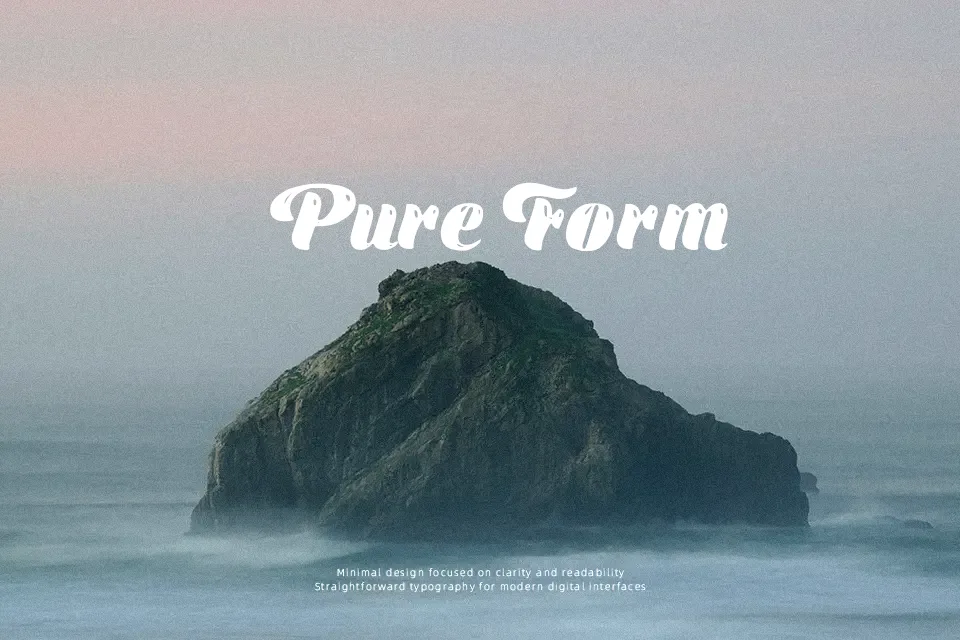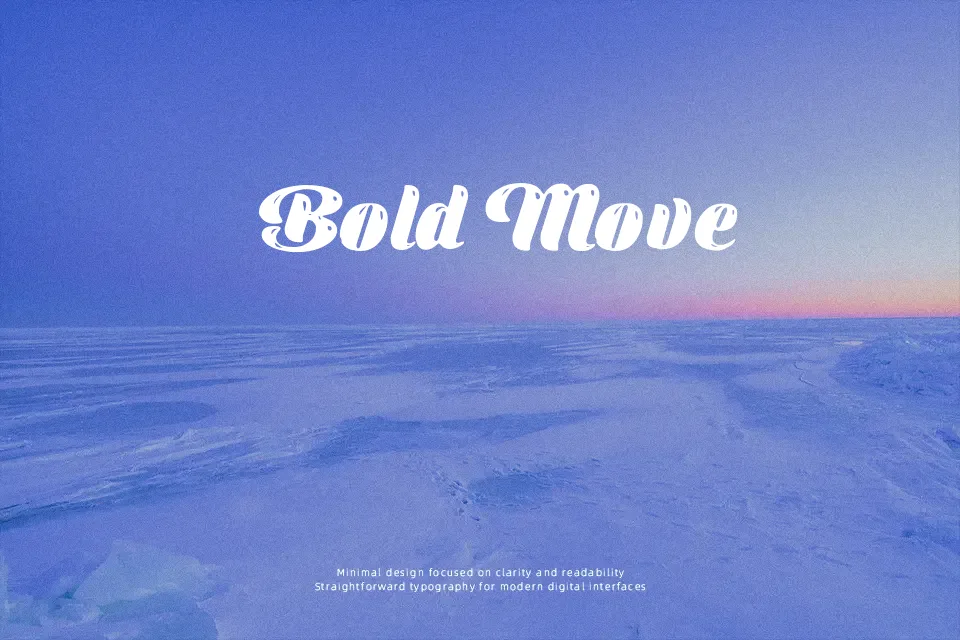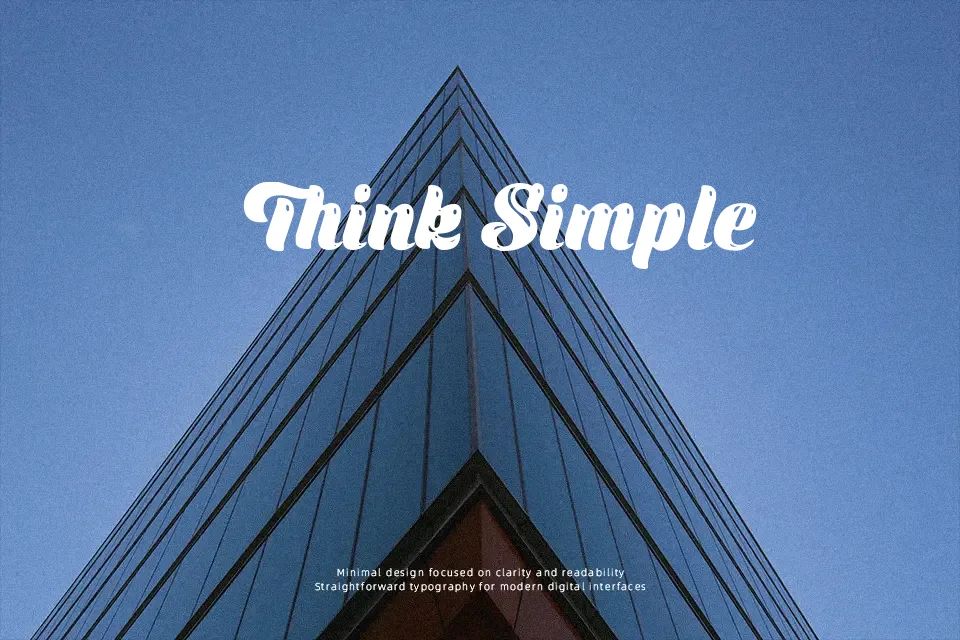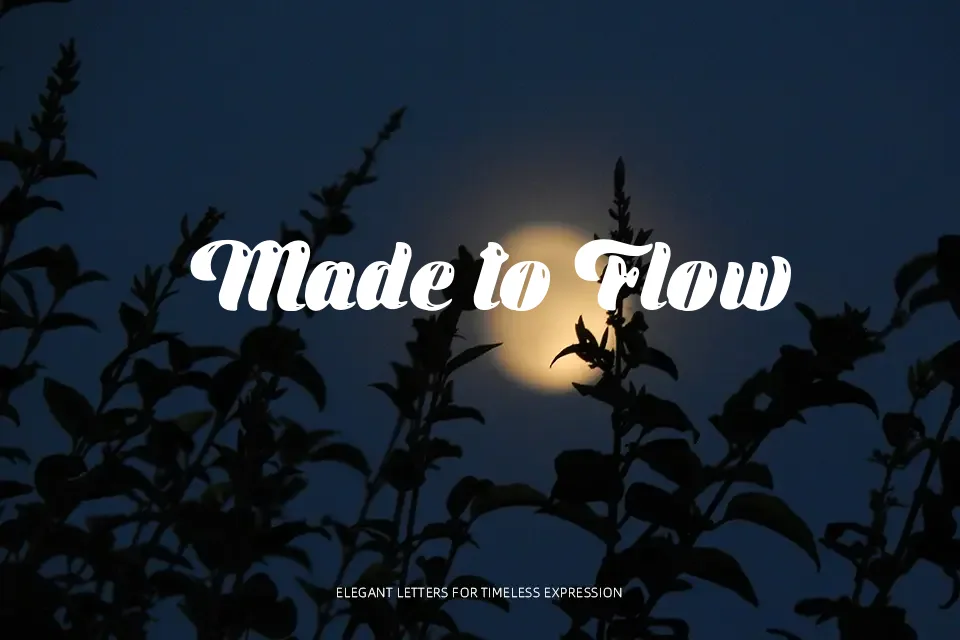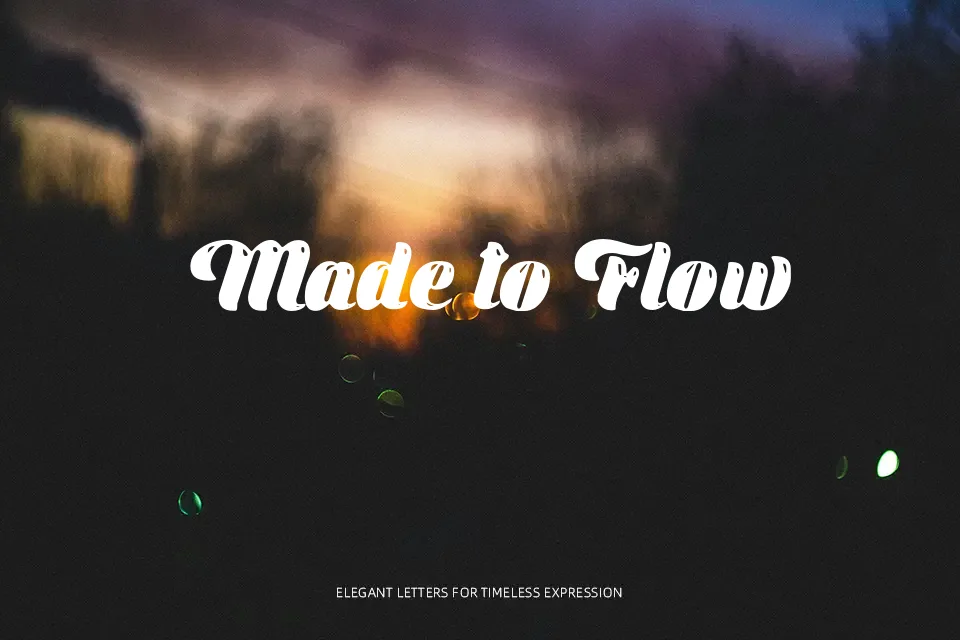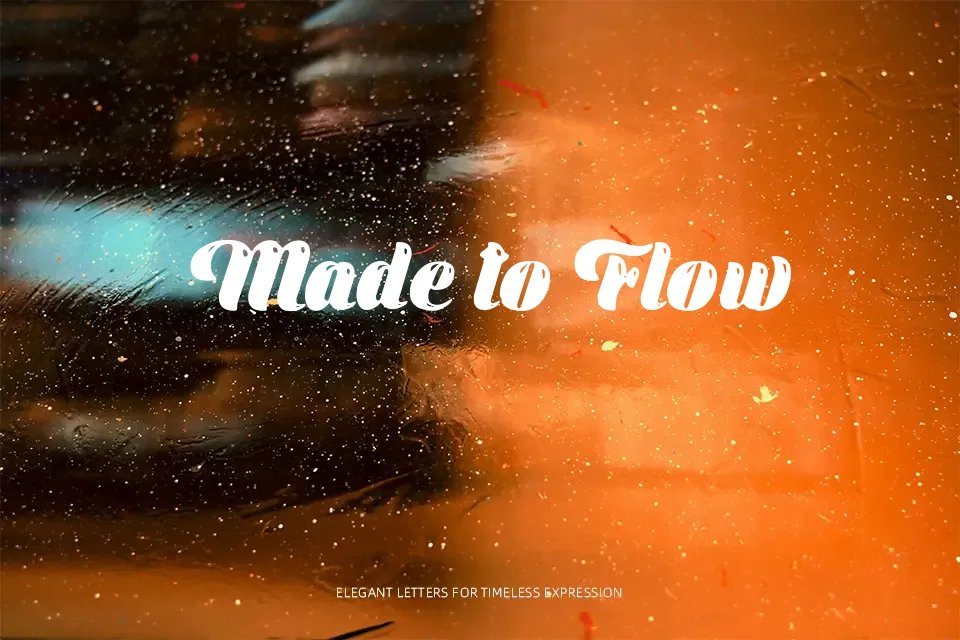
Air Travelers Font
There’s an unmistakable swagger to Air Travelers — its bold italic letterforms carry thick, expressive strokes that lean hard into a groovy, graffiti-meets-calligraphy energy. The bubbly shapes and fluid connectors give it warmth without softness, landing somewhere between street art confidence and retro flair. It handles short display text well: apparel tags, event posters, music branding, and signature-style logotypes all benefit from its kinetic weight. Where it falls short is legibility at small sizes — the bold italic structure crowds quickly, making it a poor fit for body copy or dense label text. Designers should also note this is a partial demo font; the free file covers basic Latin only, which limits multilingual or special-character work without purchasing the commercial license.
Best For:- Apparel brand logo headers
– Music event and festival posters
– Streetwear or skate label packaging
– Signature-style social media graphics
Not Ideal For:- Body copy or paragraph-length text
– Corporate or formal business documents
– Small-size applications where stroke weight reduces legibility
Perfect for advertising, branding, and headline, with a bold and decorative style.